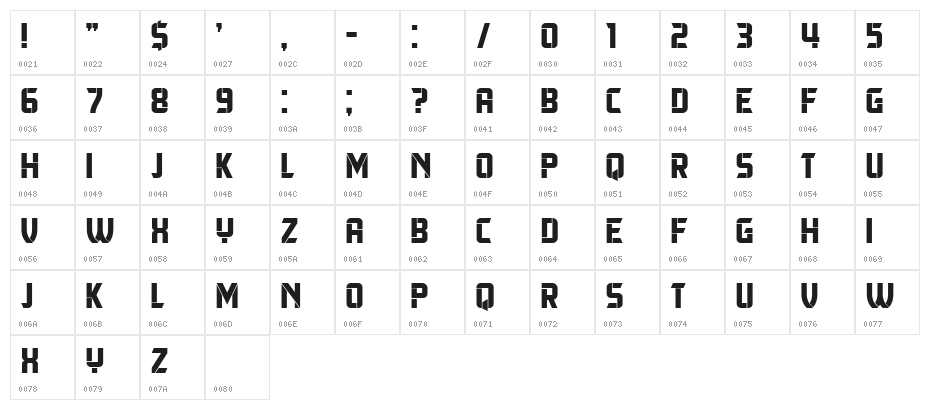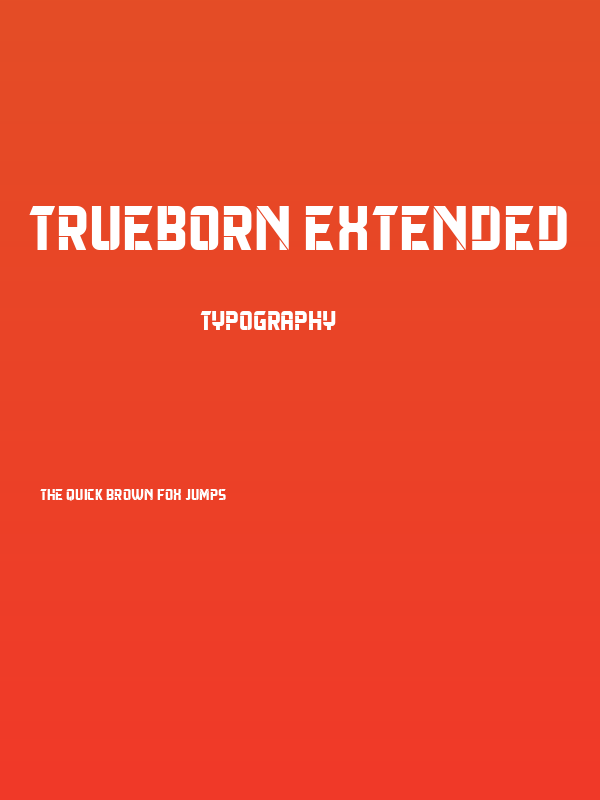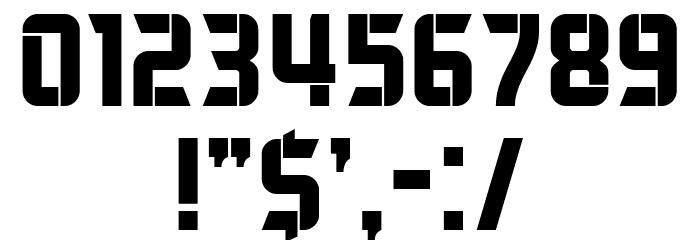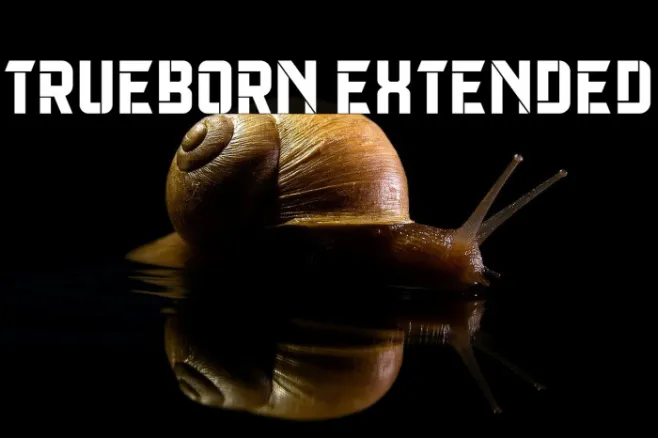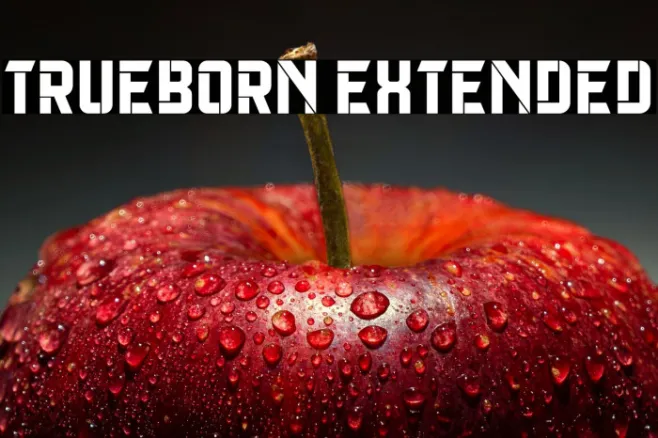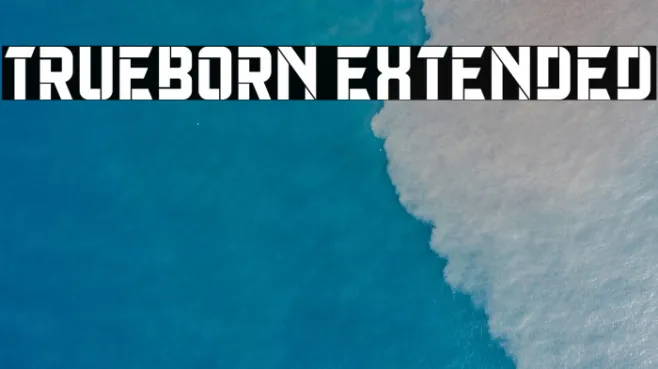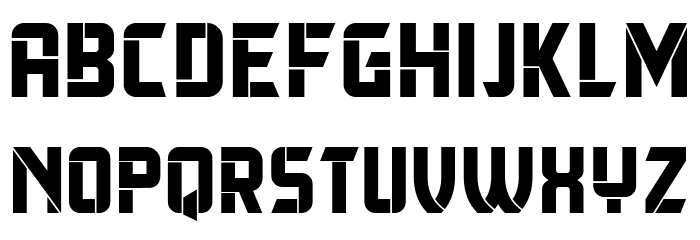
Trueborn Extended Font
Trueborn Extended Description
This font features a bold, geometric design with a futuristic and industrial feel. The characters are constructed with sharp angles and straight lines, creating a sense of precision and modernity. The uppercase letters are particularly striking, with a blocky appearance that commands attention. The numbers and special characters maintain this bold aesthetic, ensuring consistency across all elements. The font's unique style makes it ideal for projects that require a strong visual impact, such as branding, posters, or digital media.
| Proposed Projects | Ideal for branding, posters, digital media, and projects requiring a strong visual impact. |